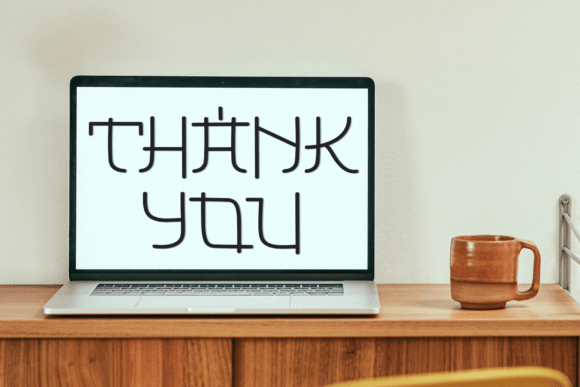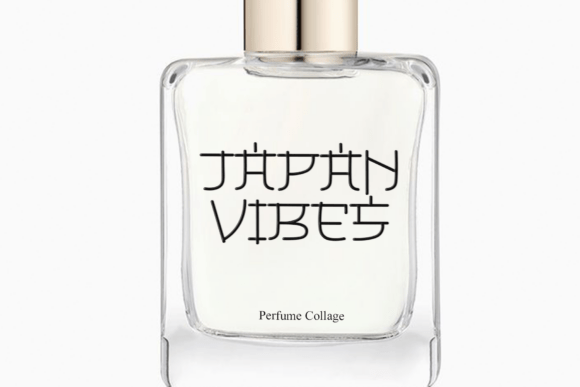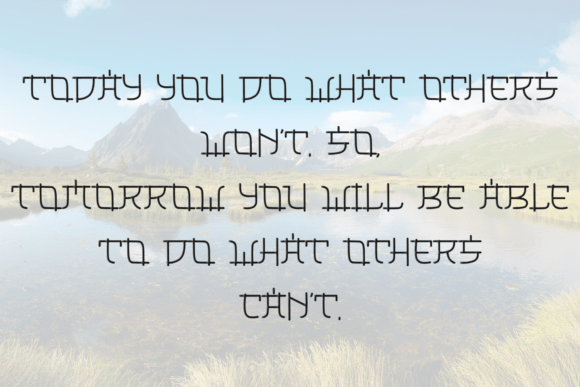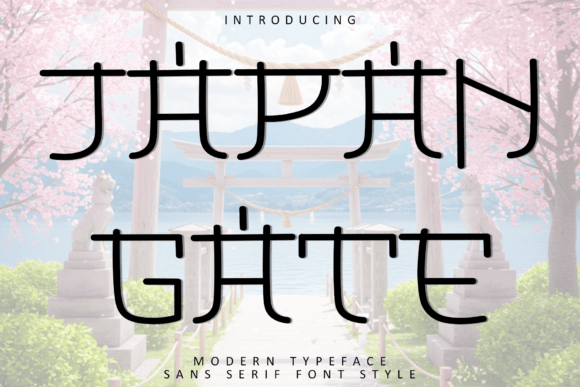
Introduction to Japan Gate Font
Japan Gate is a beautiful and eye-catching font designed with a soft, unique touch.
Its distinctive strokes give it a special character, making it meaningful and versatile for future use With various characters, it’s perfect for design projects, crafts, and other creative works.
Japan Gate Font offers exceptional quality and versatility, making it a valuable addition to your design toolkit. Whether you’re creating for personal projects or commercial use, Japan Gate Font delivers professional results.